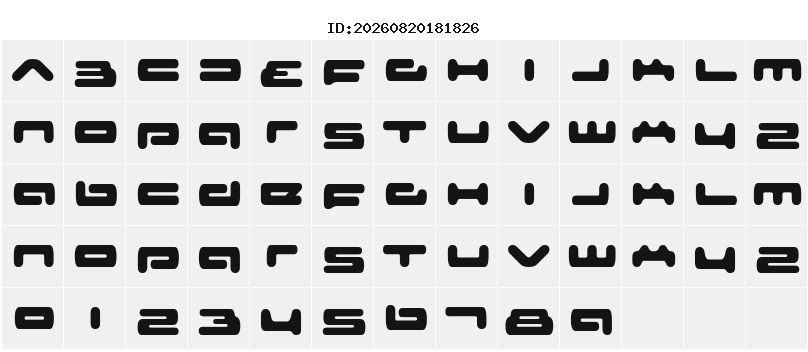
Senior Service Preview
• Font Name: Senior Service
• Font ID: RayLarabie: Senior Service: 2005
• Full Font Name: Senior Service
• Version: Version 3.100 2005
• Designer: Ray Larabie
• Manufacturer: Ray Larabie
About Senior Service.ttf
Senior Service.ttf is a modern, elegant sans-serif font designed for ultimate readability and visual harmony. Perfect for branding, headlines, web design, and print materials.